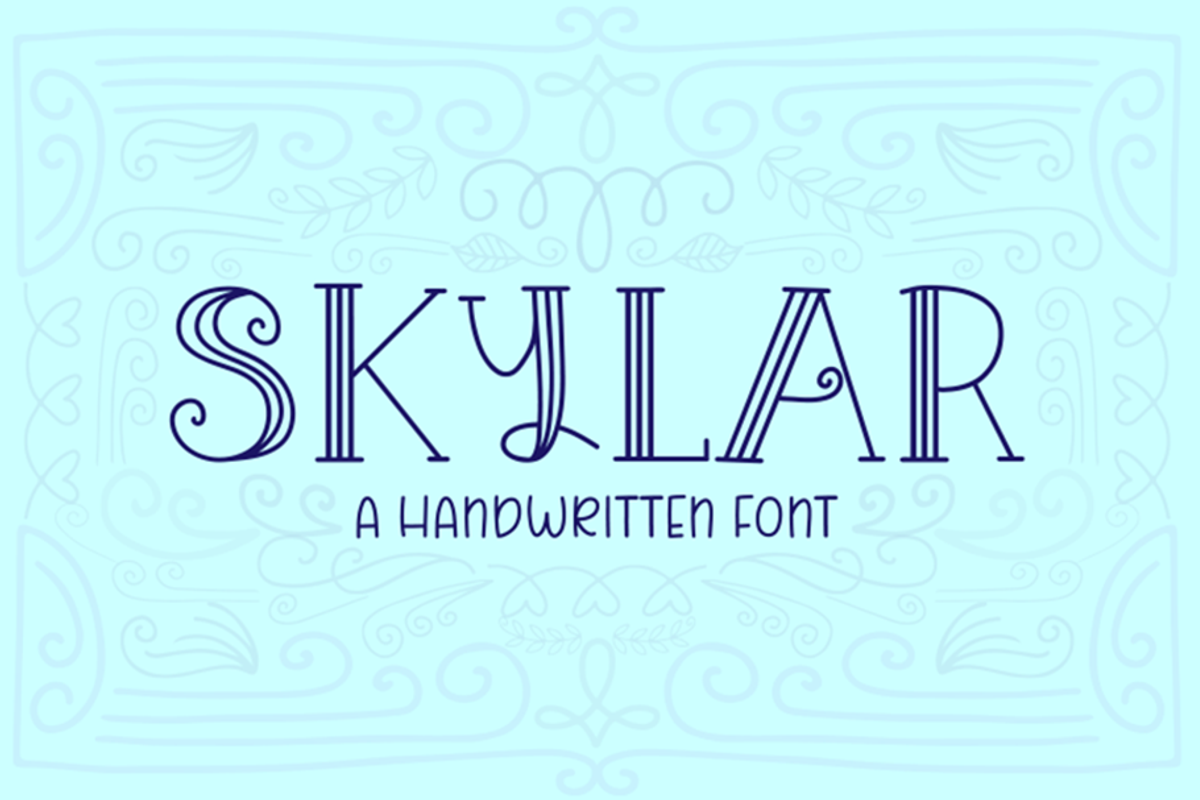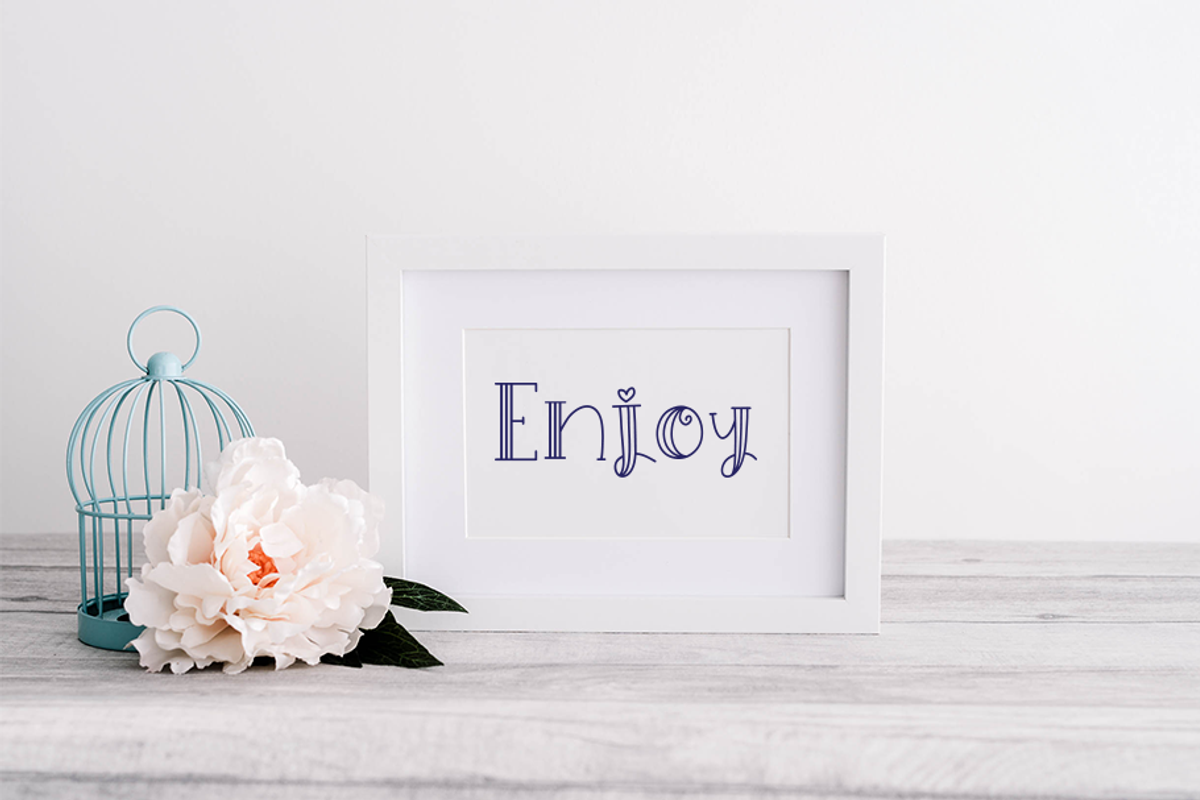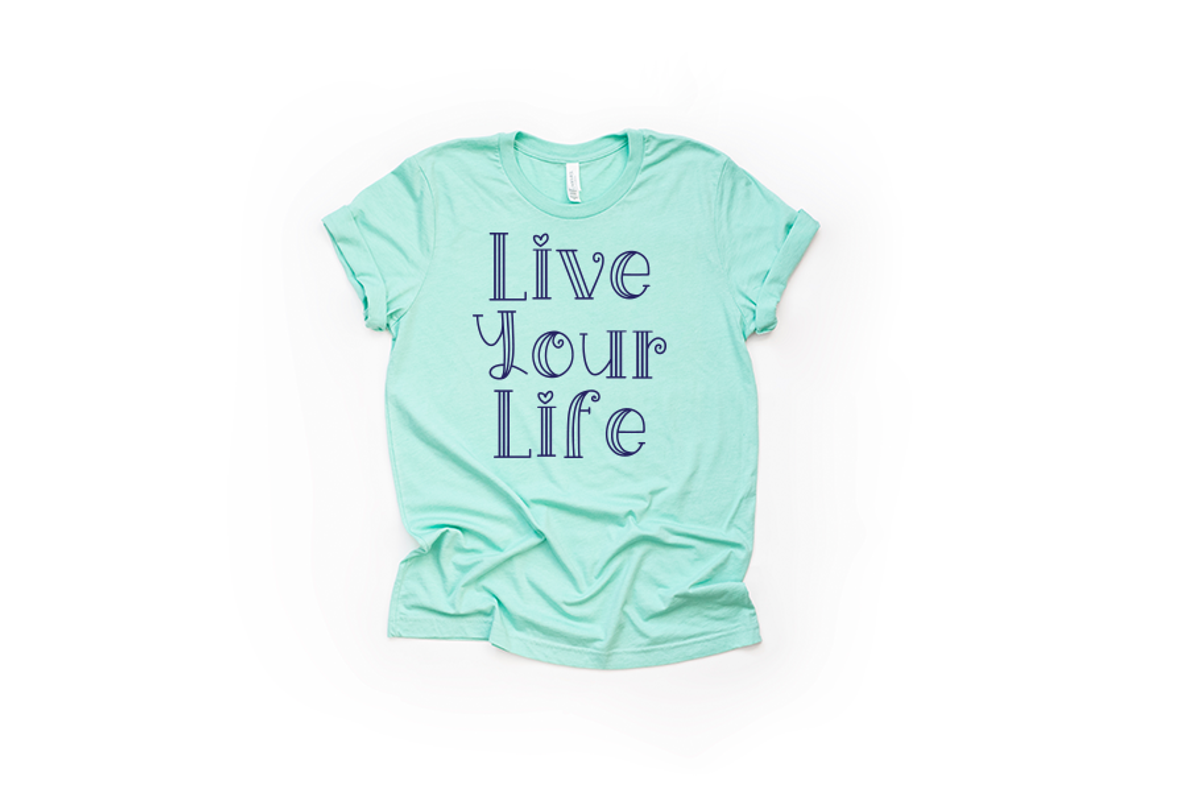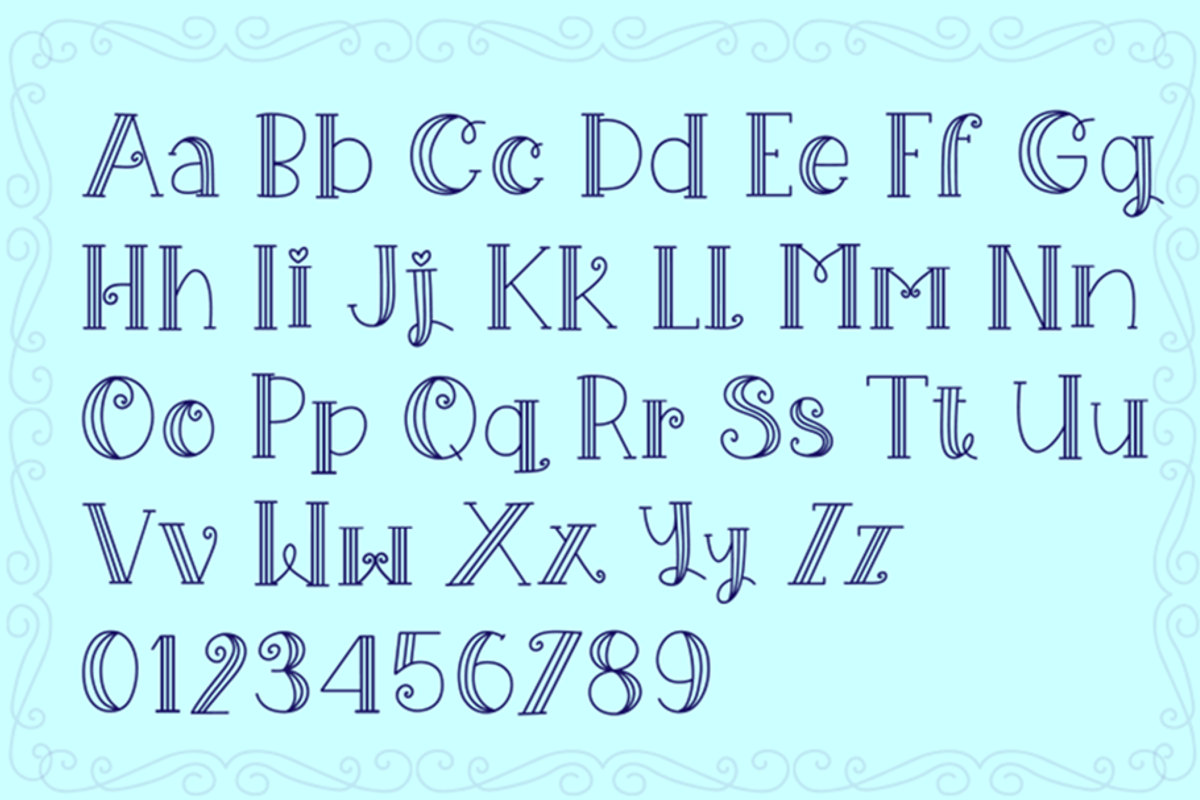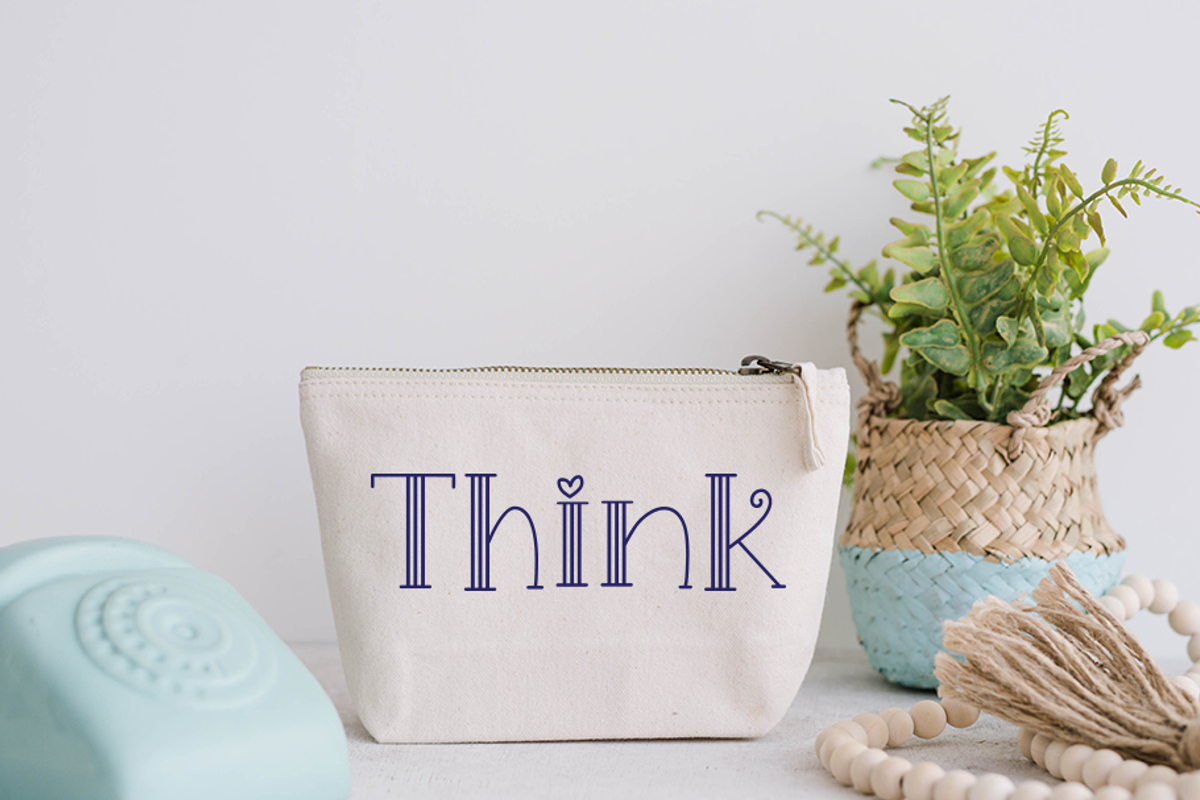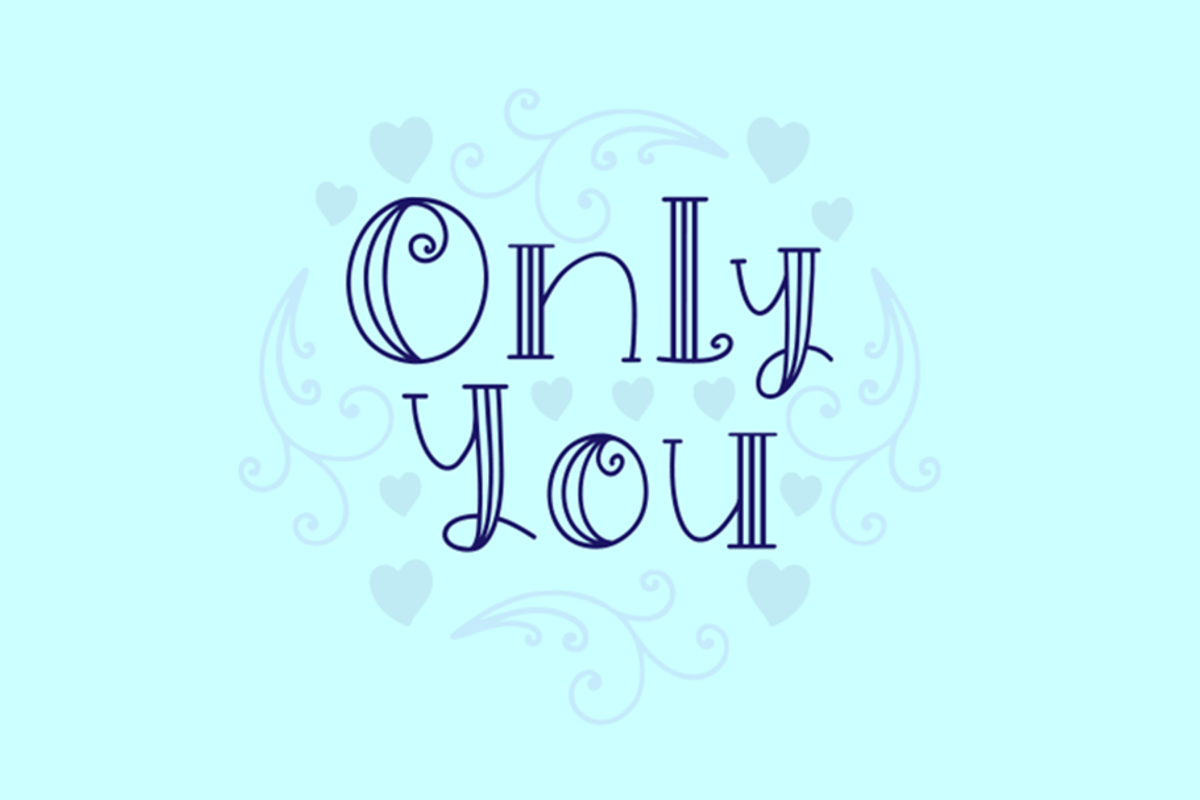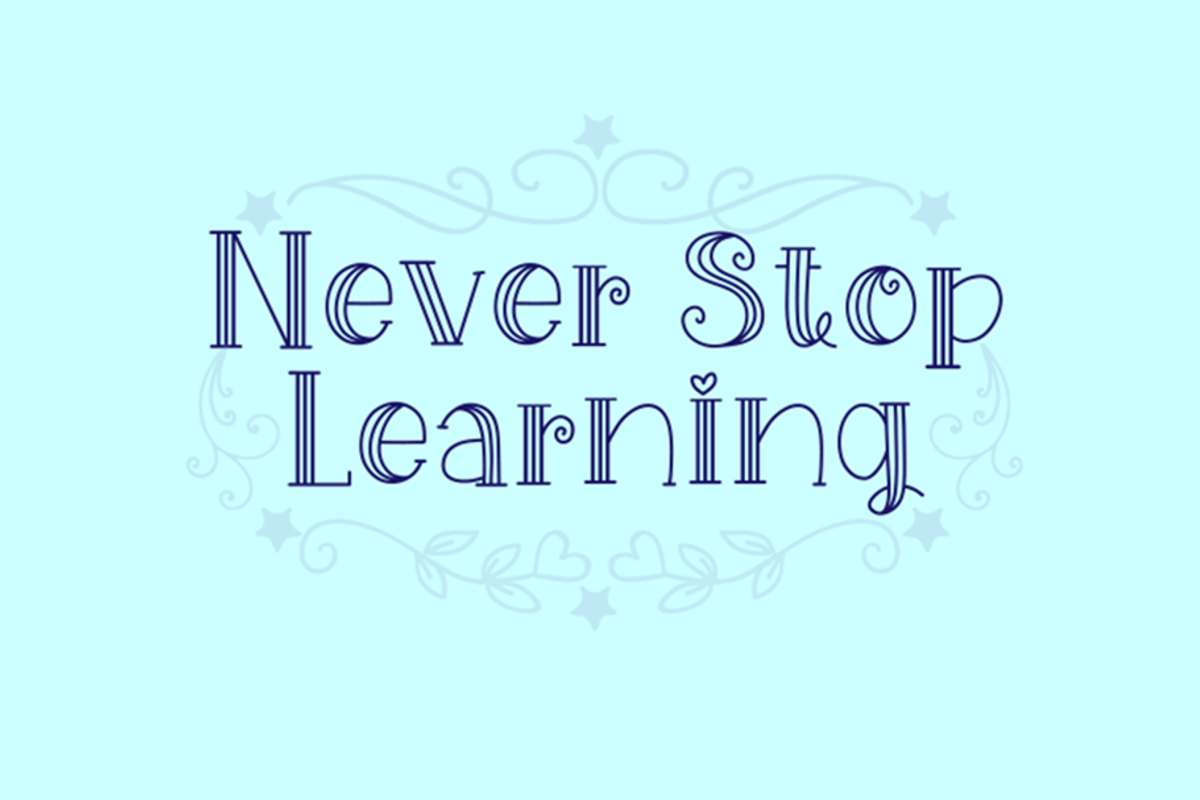
Skylar
This whimsical handwritten font is romantic and fun. It is absolutely perfect for greeting cards, wedding invitations, T-Shirt graphics, product packaging, labels and much more. You can use this font in any application. This font purchase is available in OTF and TTF files.